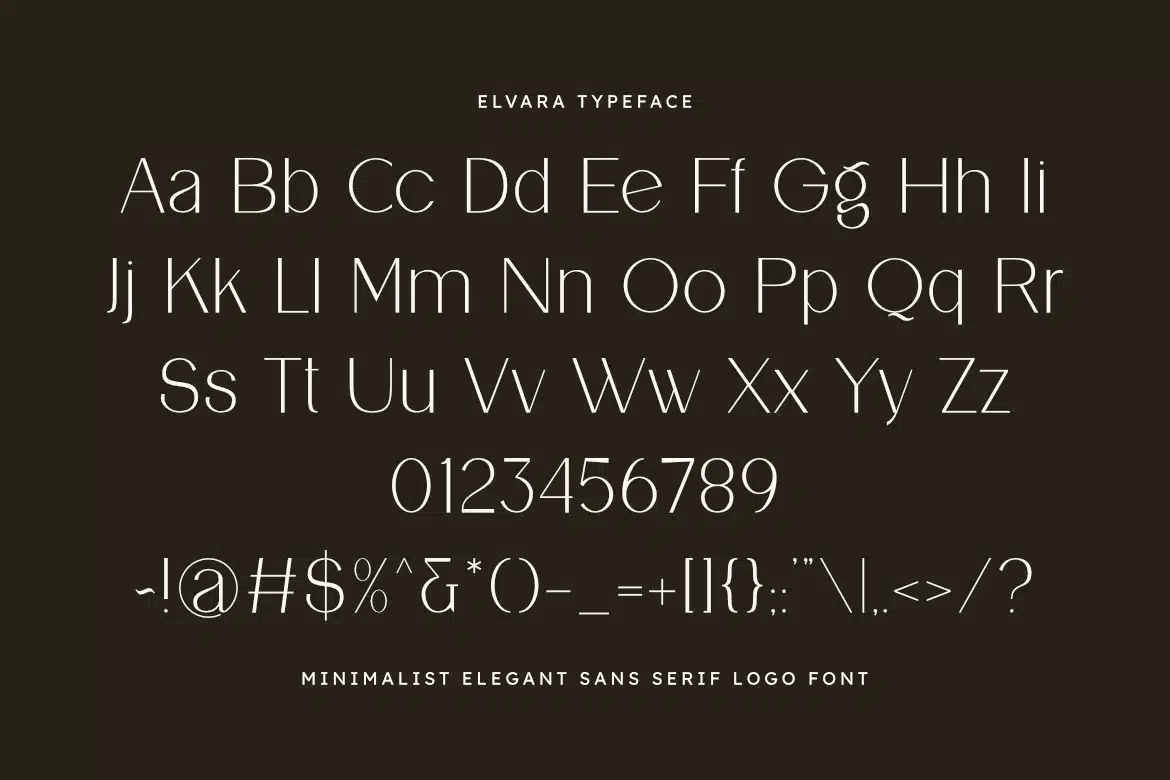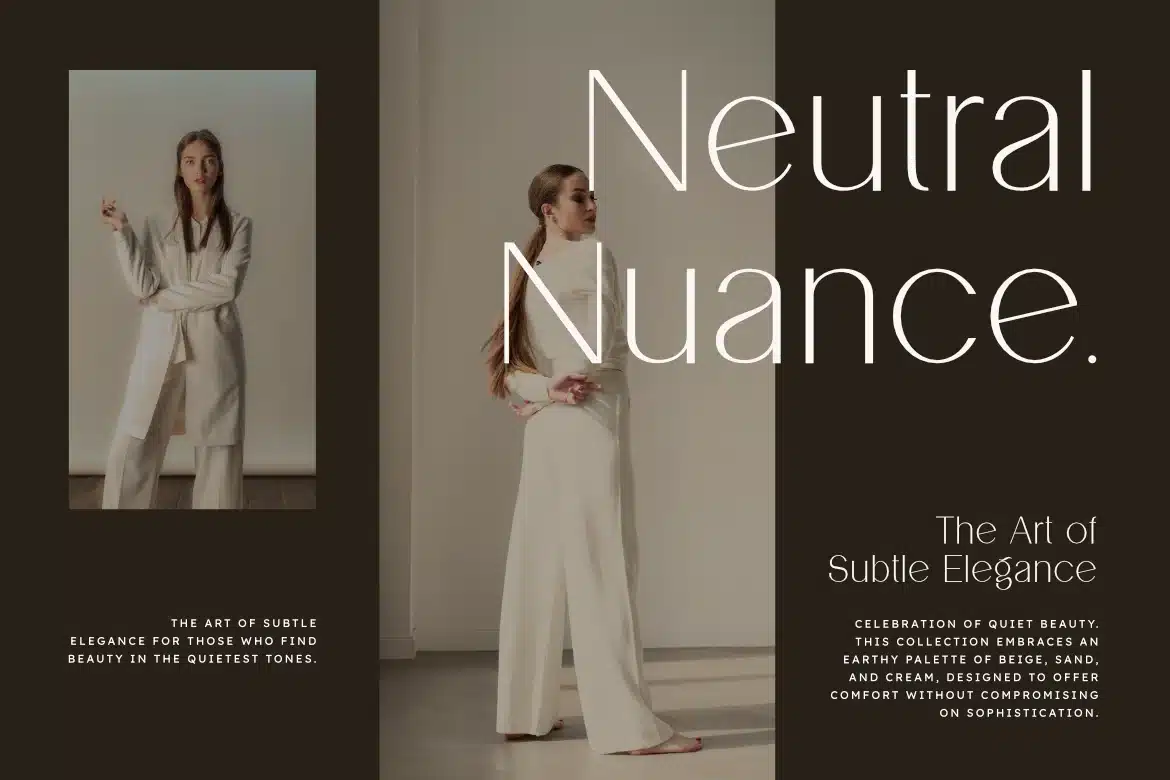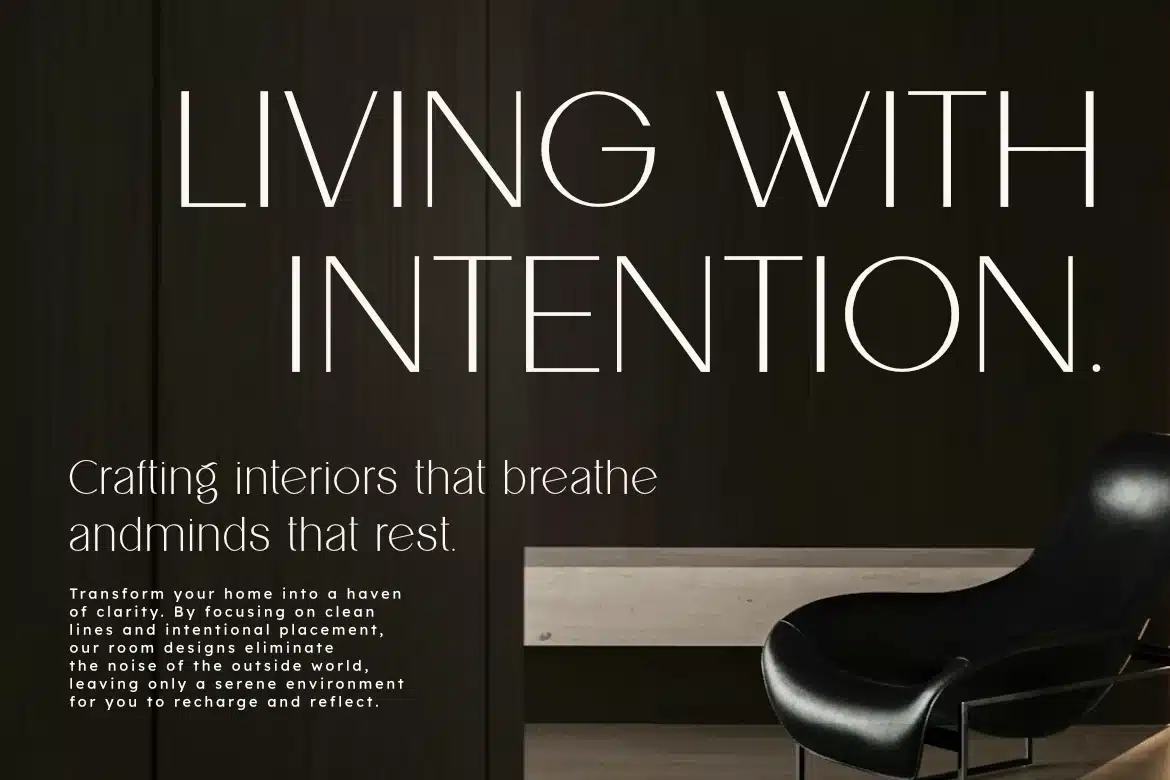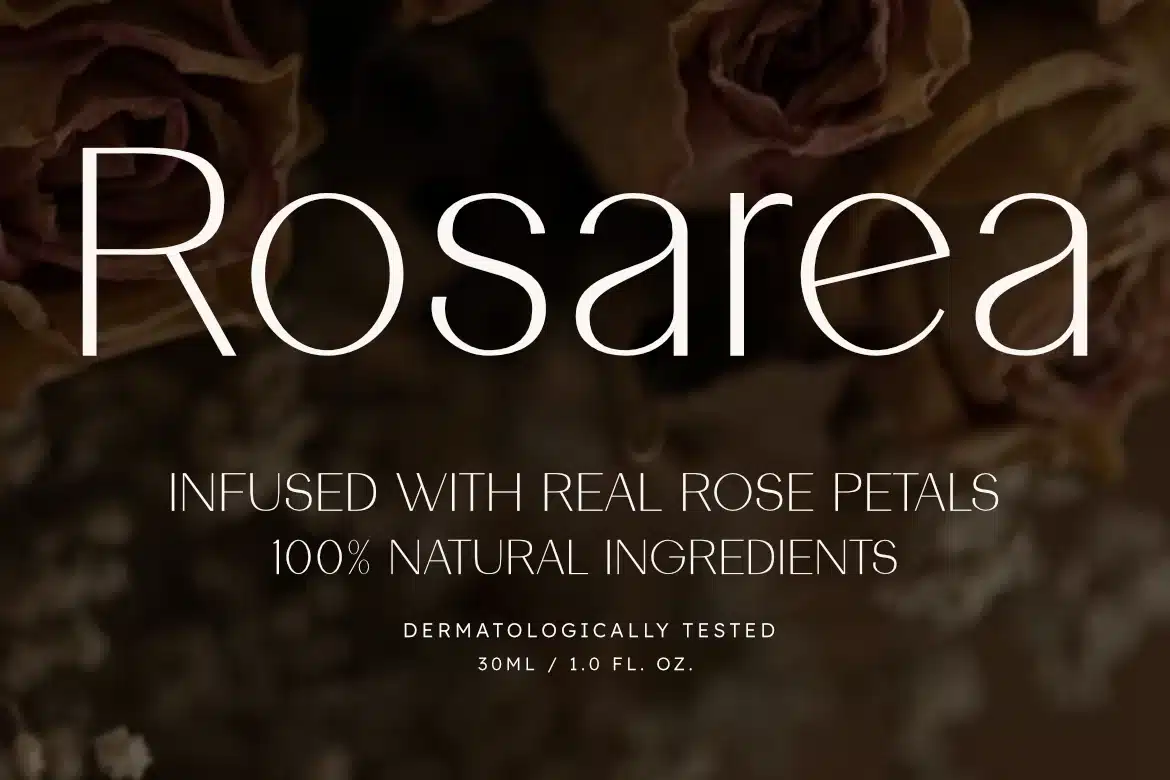
Elvara – Minimalist Elegant Sans Serif Logo Font
Elvara is a sophisticated sans serif typeface that defines modern luxury through its minimalist and airy design. Crafted with a focus on clean lines and refined proportions, Elvara is the ultimate tool for creating high-end brand identities, sleek logos, and professional editorial layouts.
The font features unique, subtle character details that provide a distinct personality without compromising its minimalist core. Its lightweight structure makes it perfect for designers who want to achieve a polished, "quiet luxury" aesthetic in their creative projects.
Main Features:
- Clean, Sleek, and Minimalist Aesthetic
- Sophisticated Sans Serif Letterforms
- Designed Specifically for Logo & Branding
- Optimized for High-Visibility Headlines
Best Used For:
Minimalist logo branding, boutique signage, luxury fashion magazines, premium skincare packaging, architectural portfolios, and contemporary web headers.